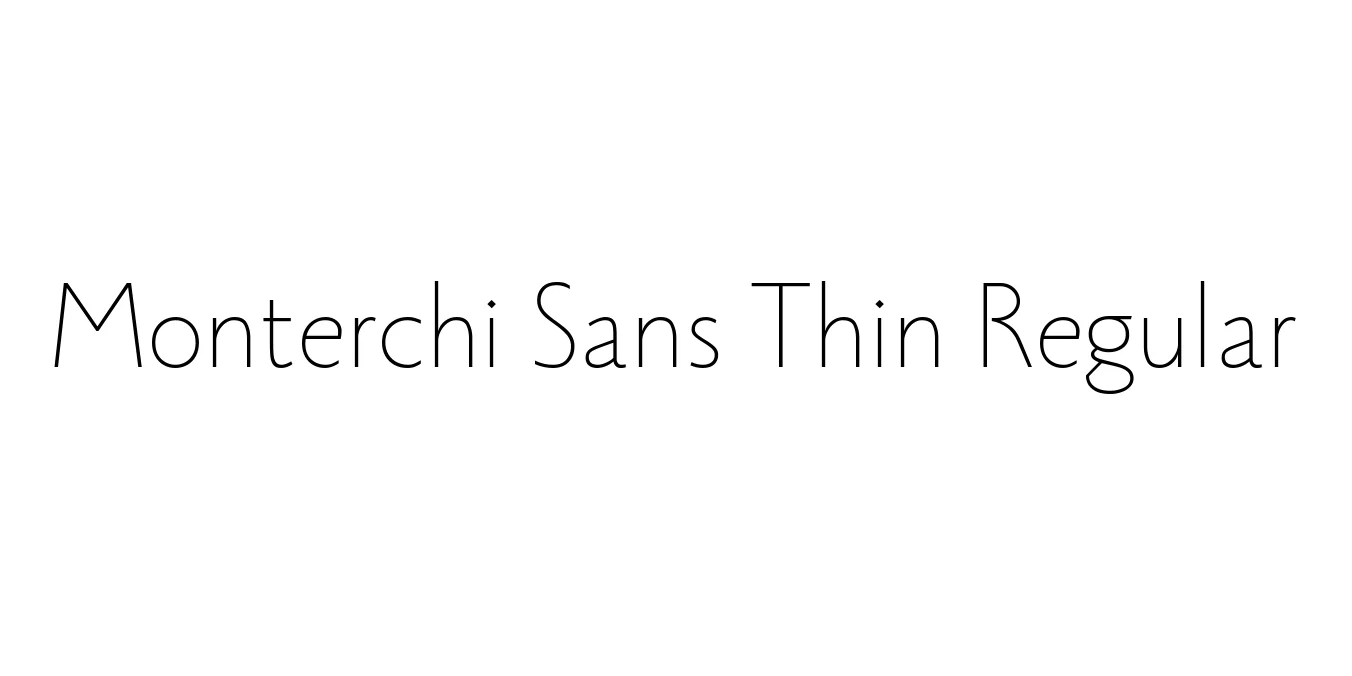
Monterchi Sans Thin Regular
Designed by Francesco Canovaro, Cosimo Lorenzo Pancini, Maria Chiara Fantini (Zetafonts)
Monterchi Sans Thin Regular is a sophisticated member of the Monterchi family, designed by the creative team at Zetafonts. Inspired by the geometric elegance and humanist proportions found in Renaissance art—specifically the work of Piero della Francesca—this typeface successfully blends classical calligraphic roots with a clean, contemporary aesthetic. The Sans variant removes traditional serifs to reveal a streamlined form that remains deeply rooted in Italian design heritage.
The Thin weight specifically emphasizes the delicate craftsmanship of the strokes, making it an excellent choice for high-end fashion, luxury branding, and editorial layouts. Despite its light appearance, it maintains remarkable clarity and a rhythmic flow, characteristic of modern humanist sans-serifs. Its wide range of OpenType features and multilingual support ensures it meets the needs of professional designers looking for both beauty and functionality.
Monterchi Sans Thin Regular Best Uses
Ideal for high-end luxury brand identities and minimalist logos.
Perfect for large, elegant headlines and sophisticated pull-quotes.
Great for hero sections and clean, modern user interfaces.